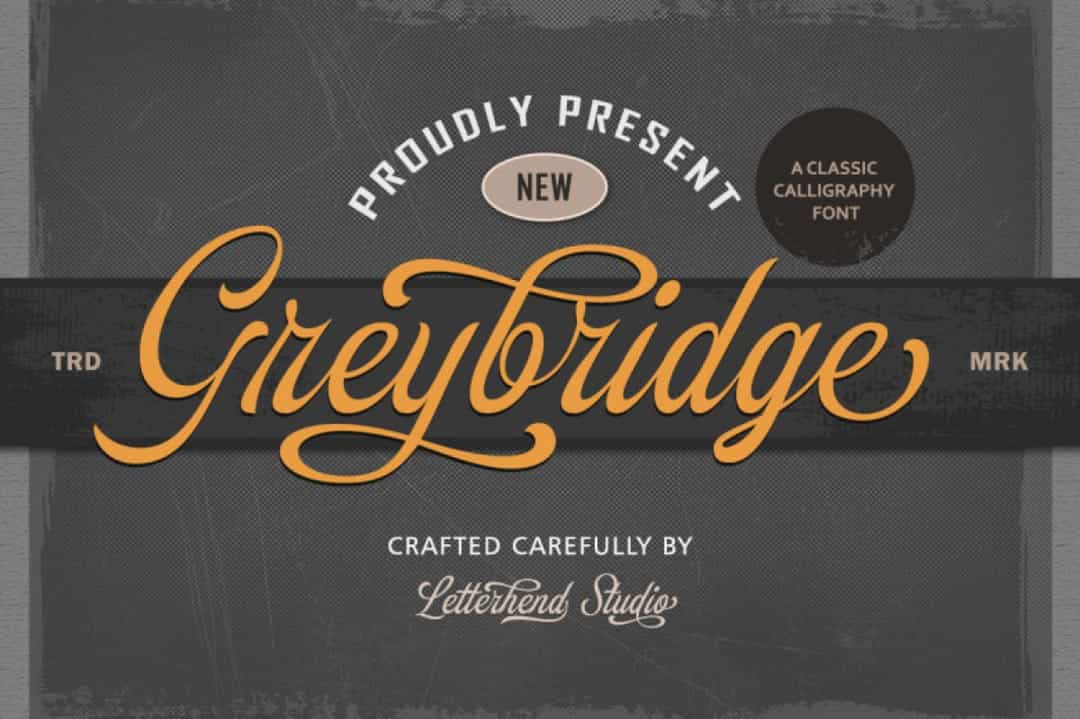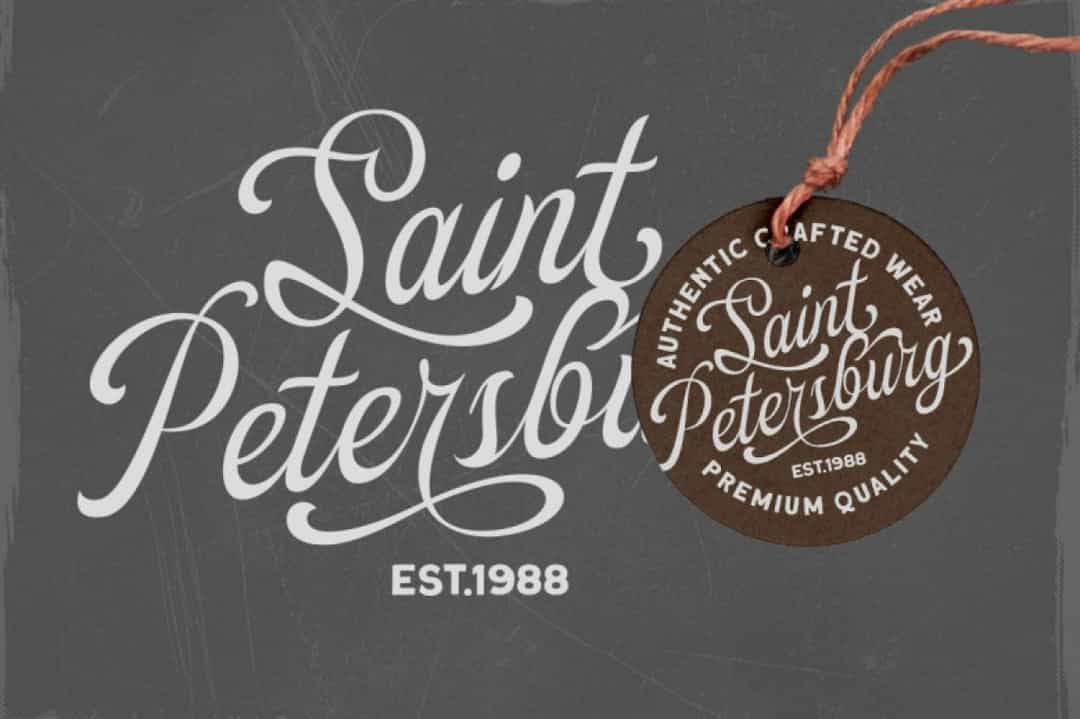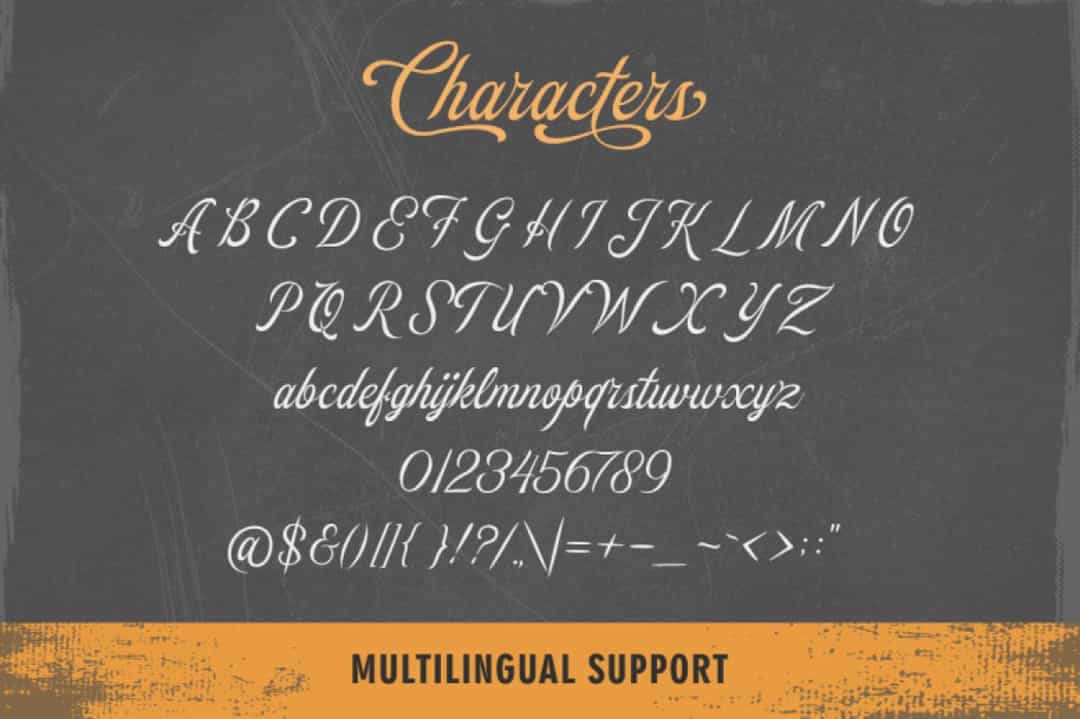
Greybridge Calligraphy font is an exquisite vintage-inspired script font designed for use on invitations, thank-you cards, greeting cards, quotes as well as business cards, logos and any other designs needing a handwritten touch.